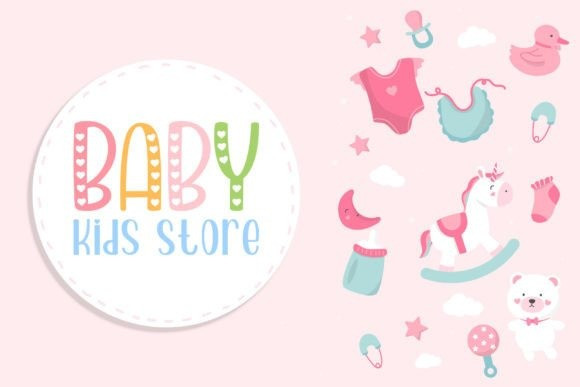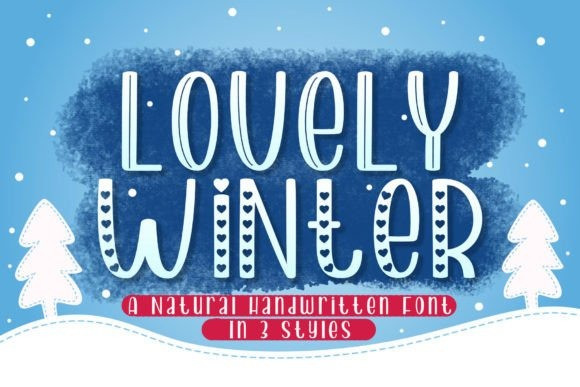
Lovely Winter Font
Lovely Winter Font is a handwritten font that comes in three styles: regular, line and love. This font is perfect for any design projects that need a natural handwritten display font. Whether you want to create a cozy winter-themed invitation, a cute greeting card, a stylish logo, a charming poster, or a lovely social media post, Lovely Winter will add a touch of warmth and elegance to your designs.
Lovely Winter is easy to use and versatile. You can mix and match the three styles to create different effects and moods. The regular style has a smooth and clean look, the line style has a delicate and graceful feel, and the love style has a romantic and playful vibe. You can also combine Lovely Winter with other fonts to create stunning contrasts and harmonies.
Lovely Winter is a font that will make your designs stand out from the crowd. It has a unique and expressive character that will capture the attention and imagination of your audience. It also has a wide range of glyphs, including uppercase and lowercase letters, numbers, punctuation, symbols and multilingual characters. You can customize your texts with these features to create more variety and personality.